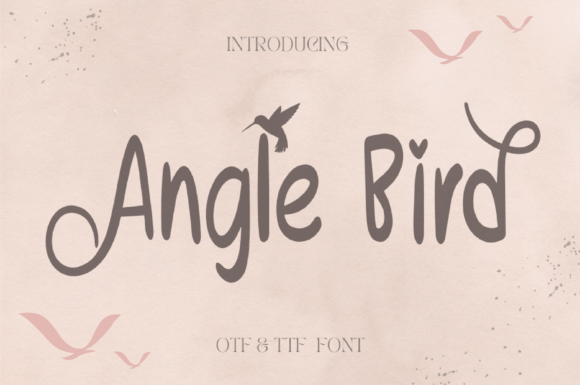
Have you ever stared at a blank page or screen, waiting for inspiration to strike? For many designers, this feeling is all too familiar. But what if we told you that the perfect font could be the key to unlocking your next creative masterpiece? Introducing the Angle Bird Font, a fun and casual handwritten font designed to bring a touch of personality to your projects.
Whether you’re working on a craft, designing a digital project, creating a presentation, or making a heartfelt greeting card, the Angle Bird Font has the potential to become your go-to font for any occasion. Its versatility and playful charm make it a valuable addition to any designer’s toolkit, allowing you to add a personal touch to your work and stand out from the crowd.
Angle Bird Font Key Features
- Font Family: Angle Bird is a unique, handwritten font with a mix of elegant and playful characteristics.
- Unique Characteristics: Angle Bird features a distinctive, hand-drawn look with varying line widths and subtle imperfections, giving it a personal touch.
Designer Review: Angle Bird Font
Overall, I found the Angle Bird Font to be a unique and intriguing choice for typography. ✨ One of the things that stands out is its versatility – the font works well for both digital and print projects, making it a great option for designers who need to adapt to different mediums.
Another positive aspect is the font’s expressive nature, which allows it to convey a sense of playfulness and creativity. ✨ The unique angles and shapes of the letters make it an excellent choice for designs that require a touch of whimsy.
However, there are some limitations to consider. ⚠️ One of the main concerns is the font’s readability at smaller sizes. In some cases, the angles and shapes of the letters can make it difficult to read, especially for text-heavy content.
Additionally, the font may not be suitable for formal or professional designs, as its playful nature may not be in line with the tone of the project. ⚠️
Conclusion
Overall, I think the Angle Bird Font is a great choice for designers who want to add a touch of creativity and whimsy to their projects. However, it’s essential to consider the limitations and ensure that the font is used in a way that complements the design’s overall message.
Key Points
- Unique and versatile font suitable for digital and print projects
- Expressive and playful nature makes it an excellent choice for creative designs
- May not be suitable for formal or professional designs
- Readability at smaller sizes can be an issue
Angle Bird Font is commonly used in:
- Graphic design projects.
- Brand identity and logo design.
- Print and digital marketing materials.
Alternatives to Angle Bird Font
Bebas Neue is a sans-serif font with a modern feel, suitable for headings and titles. It has a strong, geometric appearance that works well for titles and headings in modern designs. Compared to Angle Bird Font, Bebas Neue is more geometric and lacks the ornate details, making it a great choice for designs that require a clean and minimalist look.
Playfair Display is a luxurious, high-end serif font that works well for titles, headings, and luxury branding. It has an elegant, classic feel that evokes a sense of sophistication and refinement. Unlike Angle Bird Font, Playfair Display is more formal and less playful, making it a great choice for high-end designs and luxury branding.